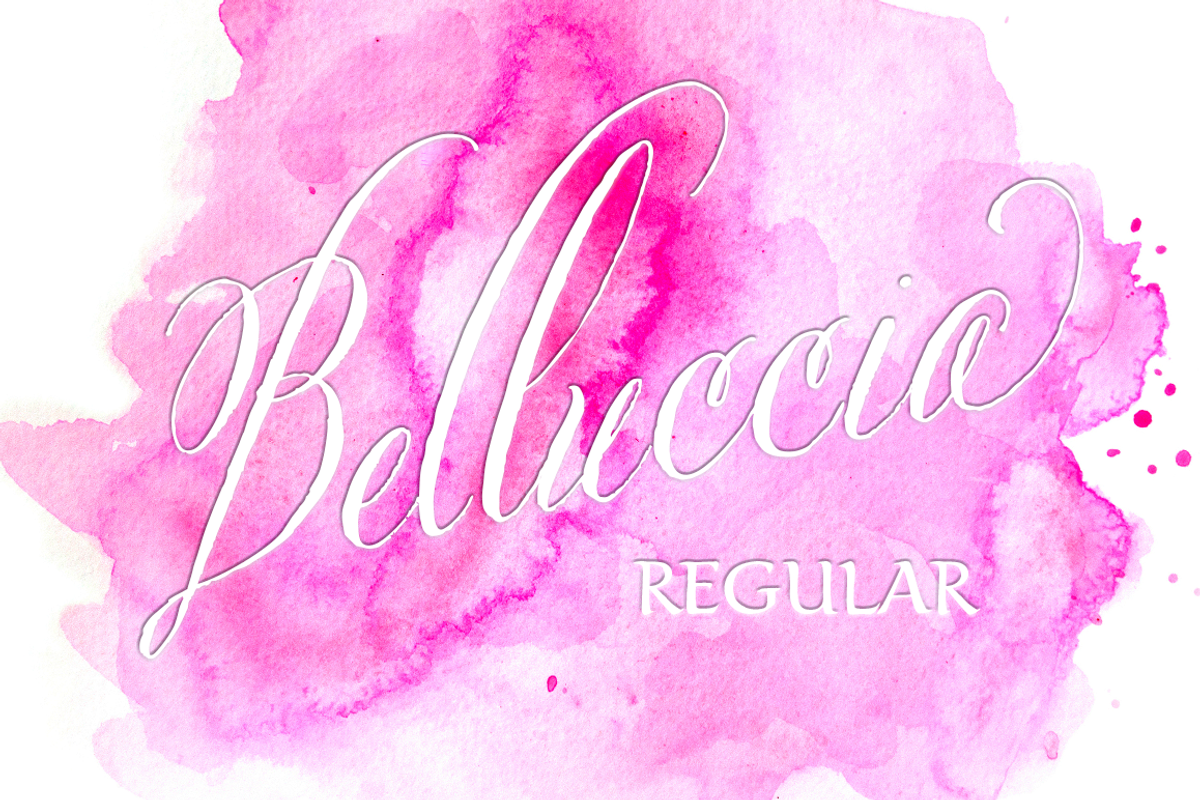
Belluccia Hand Lettered Font Free Download is a beautiful and elegant script typeface that captures the charm of handwritten calligraphy. Featuring flowing, delicate letterforms and graceful strokes, this font is perfect for wedding invitations, logos, branding, greeting cards, and any project that requires a personal, artistic touch.
Its sophisticated design adds a sense of elegance and warmth to your typography, making it ideal for projects that need a refined, yet intimate feel. Whether you're creating for a special occasion, a luxury brand, or a creative campaign, Belluccia Hand Lettered Font Free Download brings timeless beauty to your designs.